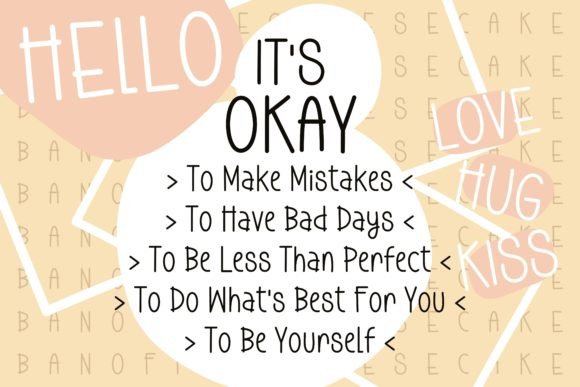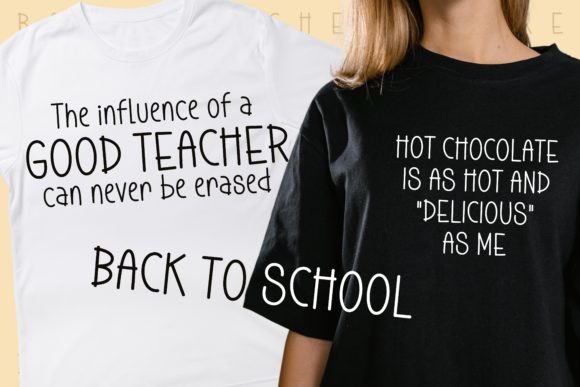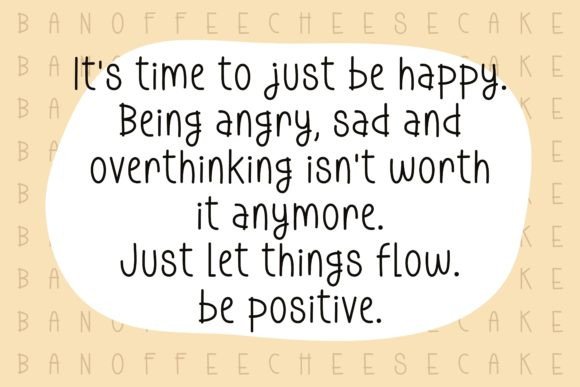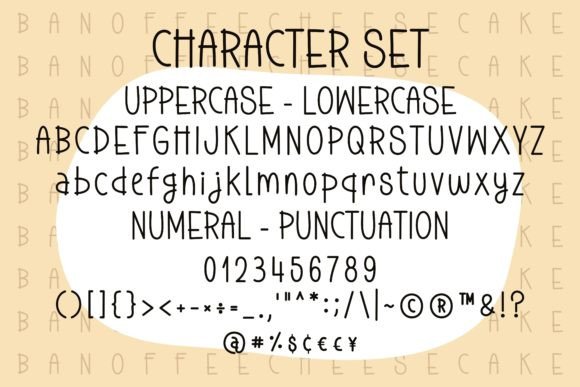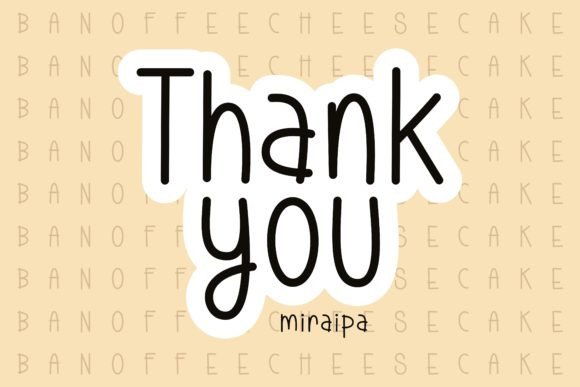
Banoffee Cheesecake Font: The Perfect Addition to Your Design Library
Are you on the hunt for a font that adds a touch of whimsy and playfulness to your designs? Look no further than the Banoffee Cheesecake Font! This charming sans serif font is perfect for designers and crafters who want to bring a friendly and approachable vibe to their projects.
What Makes Banoffee Cheesecake Font So Special?
Banoffee Cheesecake Font is designed with a cute and playful sans serif style that is sure to capture the hearts of designers and crafters alike. Its charming and whimsical design makes it perfect for a wide range of projects, from fun and quirky designs to more traditional and elegant ones. The font’s quirky touch adds a unique flair that sets it apart from more traditional fonts.
So, what can you use the Banoffee Cheesecake Font for? The possibilities are endless! Here are some ideas to get you started:
- Easter and Spring Designs: Add a touch of Easter cheer to your designs with this fun and playful font. Use it to create adorable Easter egg designs, spring-themed posters, or cute party invitations.
- Back to School: Make back to school season a little more fun with Banoffee Cheesecake Font. Use it to create colorful and engaging posters, worksheets, or classroom decorations.
- Wedding and Party Decorations: Add a touch of whimsy to your wedding or party decorations with this charming font. Use it to create beautiful invitations, decorations, or even a photo booth backdrop.
- Fall and Halloween Designs: Get into the spooky spirit with Banoffee Cheesecake Font. Use it to create creepy-cute designs, Halloween party invitations, or fall-themed posters.
- Christmas and Holiday Designs: Spread some holiday cheer with this fun and playful font. Use it to create adorable Christmas decorations, holiday party invitations, or festive social media posts.
- Posters and Blogs: Add a touch of personality to your posters and blogs with Banoffee Cheesecake Font. Use it to create eye-catching headlines, fun and engaging content, or even a blog logo.
- Clothing and Accessories: Use Banoffee Cheesecake Font to create fun and playful designs for clothing and accessories, such as t-shirts, mugs, or tote bags.
- Child-Related Designs: This font is perfect for designers who create materials for kids, such as children’s books, activity sheets, or educational resources.
- Greeting Cards and Social Media Posts: Add a touch of whimsy to your greeting cards and social media posts with Banoffee Cheesecake Font. Use it to create fun and engaging content that will make your followers smile.
Why Add Banoffee Cheesecake Font to Your Library?
So, why should you add Banoffee Cheesecake Font to your design library? Here are just a few reasons:
- Unique and Versatile: This font is one-of-a-kind and can be used for a wide range of projects, from fun and quirky designs to more traditional and elegant ones.
- Easy to Read: The sans serif design of Banoffee Cheesecake Font makes it easy to read, even at small sizes.
- Fun and Engaging: This font is sure to add a touch of personality to your designs and make them more engaging and fun.
If you’re looking for a font that adds a touch of whimsy and playfulness to your designs, look no further than Banoffee Cheesecake Font. With its charming and quirky design, this font is perfect for a wide range of projects, from Easter and spring designs to wedding and party decorations. Add it to your design library today and bring your DIY projects to life!